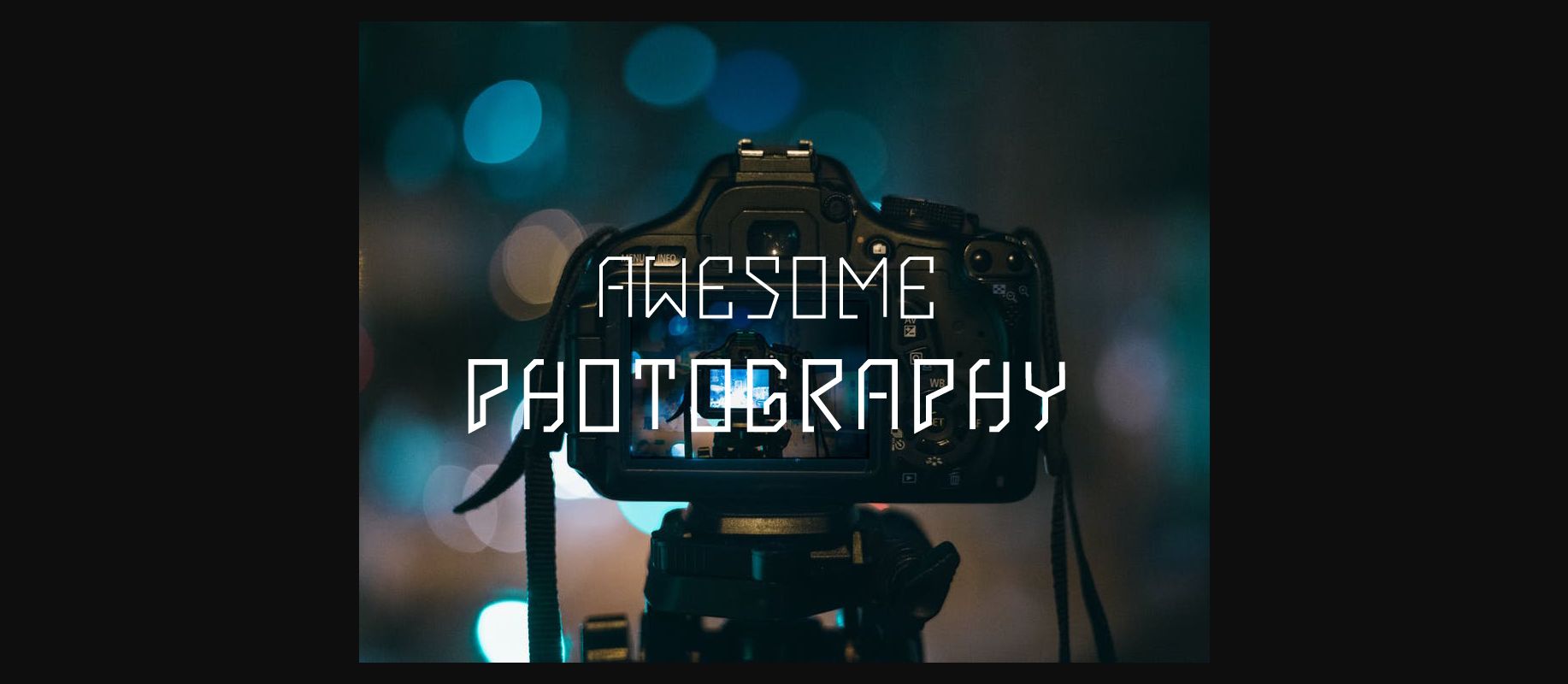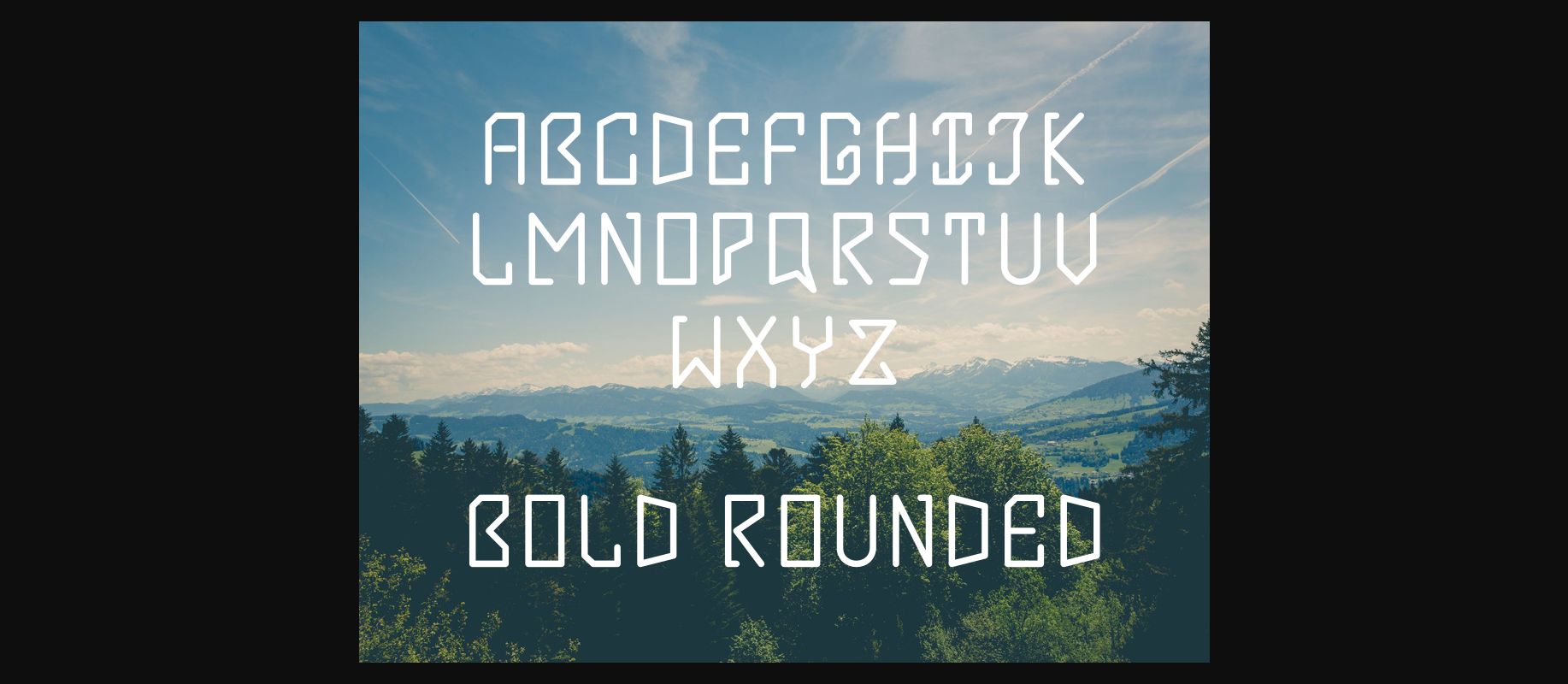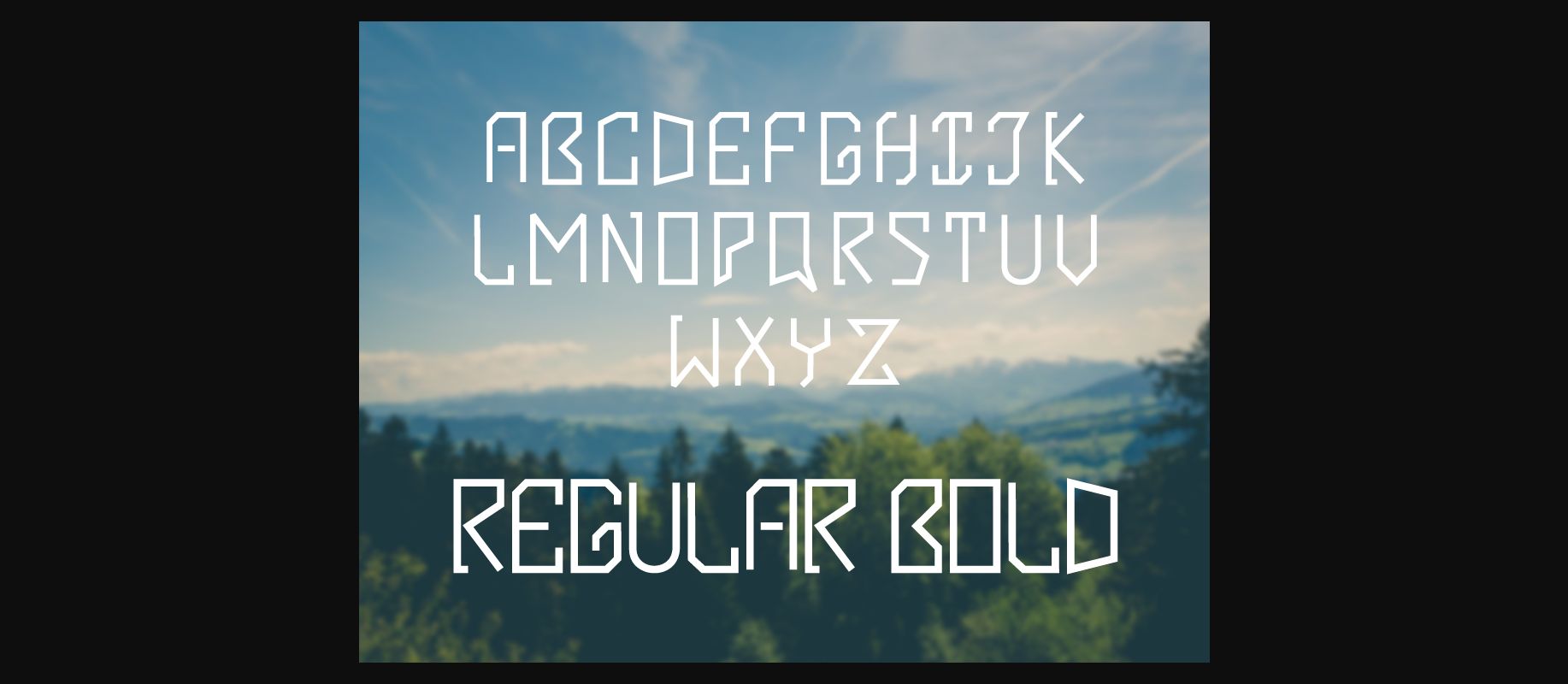
About Dusker Tall Font
Dusker Tall is a Decorative font designed to be used as either a display or text font. It is a techno font style with variations. Please see sample images for the variations.